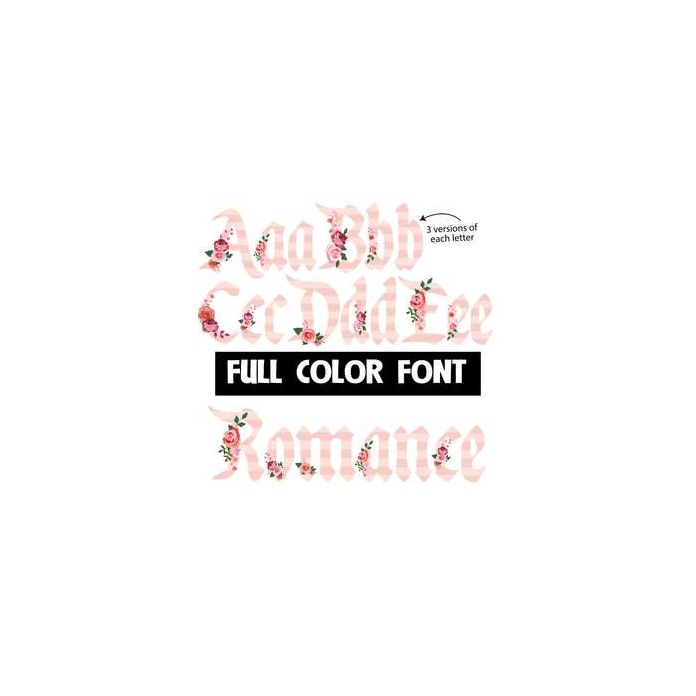
This full-color font features striped lettering with pretty florals throughout. There is a second lowercase without florals that you can access through your system's character map. This font works best for titles, displays, posters and more. Please note color fonts will show as black in non compatible programs. This font type is compatible with Silhouette Studio